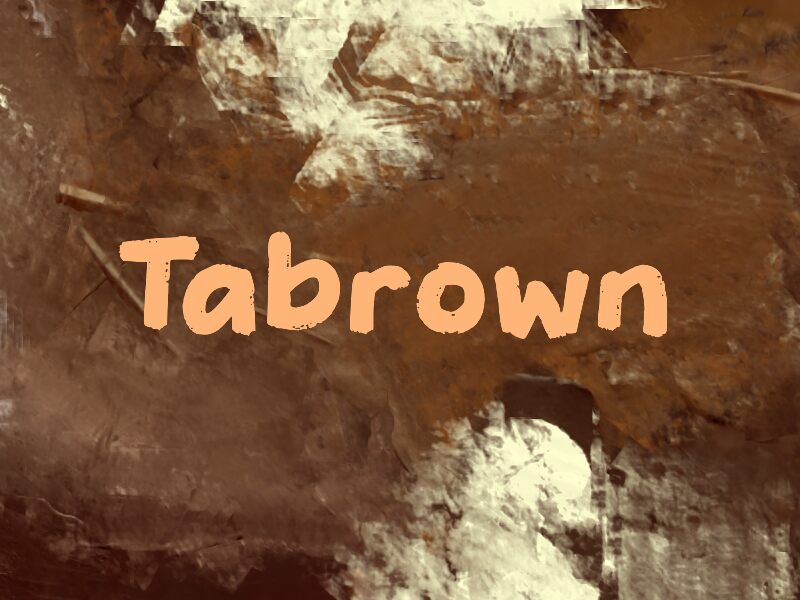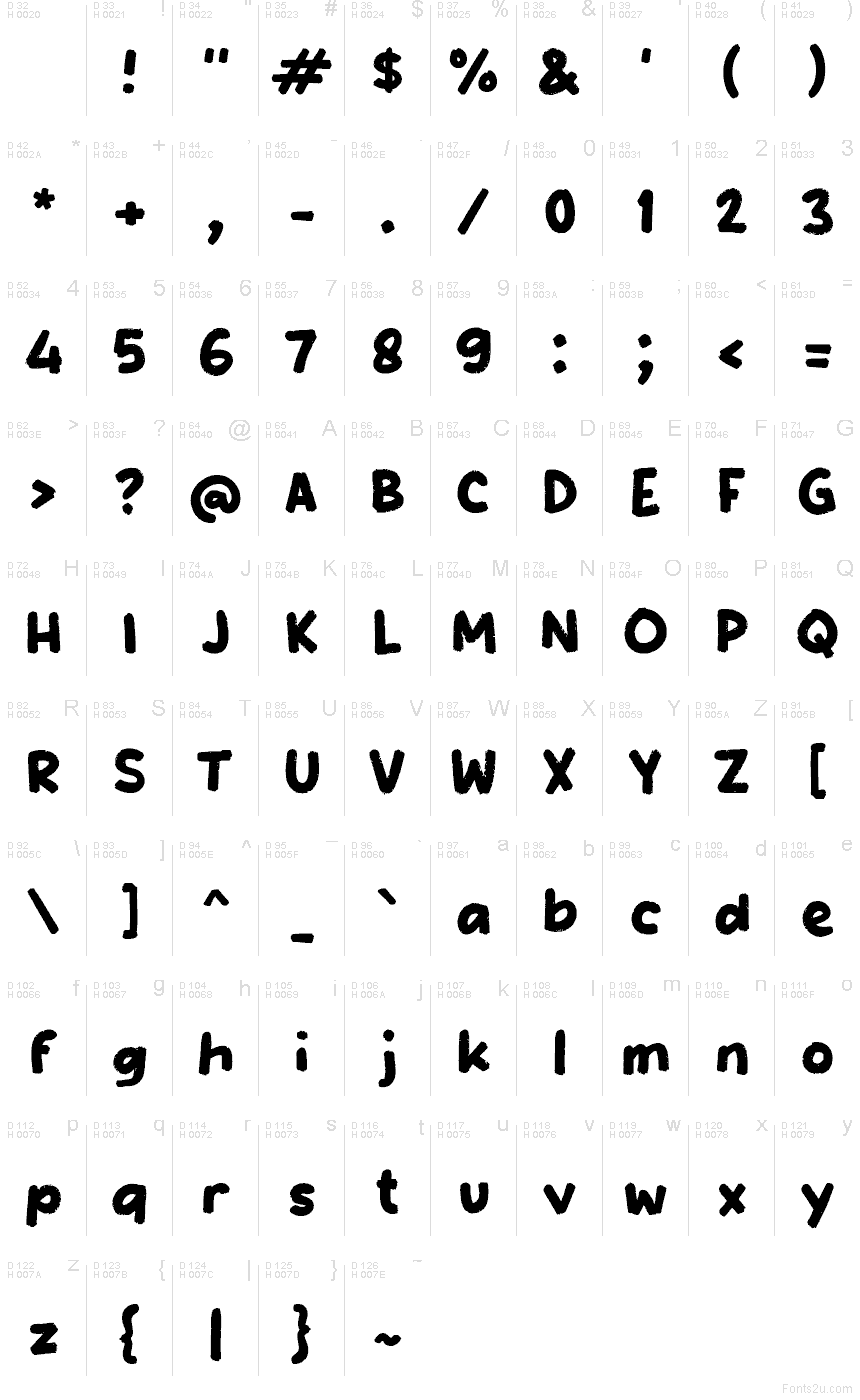
Tabrown
Tabrown font by wep is a free brush font that keeps all the fun of hand lettering without sacrificing clarity. Its chunky, rounded strokes feel like thick paint dabbed onto paper, but the spacing stays open and readable even at smaller sizes. The slightly rough, inky edges add energy and movement, giving headlines a friendly punch instead of a harsh shout.
Using Tabrown, you can bring a warm, handmade feel to posters, snack or café packaging, kids’ book covers, YouTube thumbnails, casual logos, and bold social media graphics. This free font shines when you use it large and let the texture breathe; pair it with a clean geometric sans serif for body text to keep layouts balanced and easy to scan.